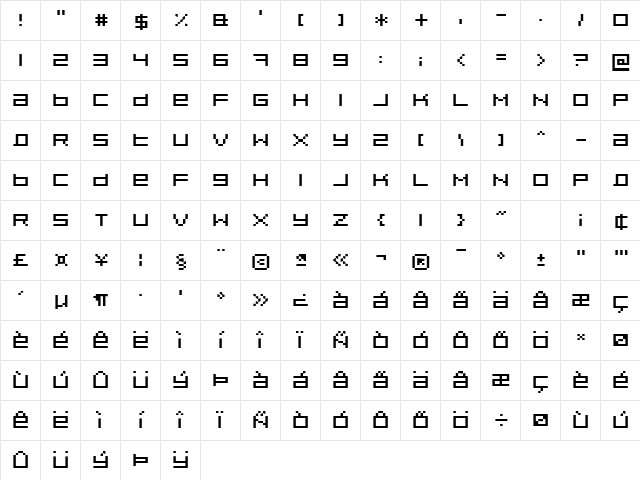
Pixeldust Expanded Regular
Designer: Andreas Nylin
Design Context for Pixeldust Expanded
Pixeldust Expanded is rooted in pixel-grid construction, making it a natural fit for game UI, retro computing aesthetics, and digital nostalgia projects.
Pro Tip: Use Pixeldust Expanded at sizes that align with its pixel grid for the sharpest rendering - scaling to non-integer multiples can introduce unwanted blur.